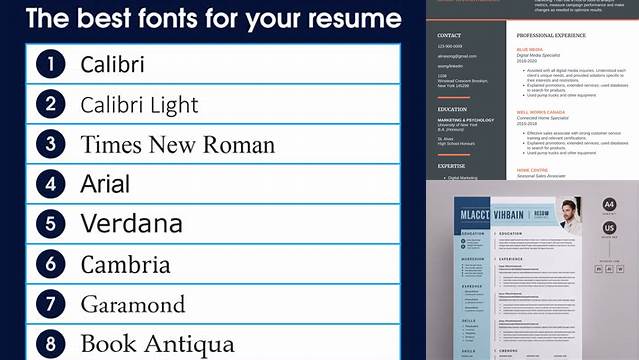
Top Clean Fonts For A Resume That Gets You Hired
Choosing the right font for your resume can make all the difference. A clean and readable font ensures your resume is taken seriously. Let's dive into the best clean fonts for a resume that will help you land that dream job. We'll explore various options, from classic choices to modern alternatives, and explain why each one is a solid pick. Finding the right font is like choosing the perfect outfit for an interview – it needs to make a great first impression. So, whether you're a seasoned professional or just starting your career, read on to discover the fonts that will make your resume shine.
Why Font Choice Matters for Your Resume
The font you choose for your resume isn't just about aesthetics; it's about readability and professionalism. A clean font ensures that your resume is easy to read, which is crucial for recruiters who often skim through hundreds of applications. Imagine reading a resume filled with a fancy, illegible font – it's a surefire way to get your application tossed aside. Using one of the best clean fonts for a resume demonstrates that you pay attention to detail and value clarity. A well-chosen font also reflects your personal brand. A modern, minimalist font might suit someone in the tech industry, while a more traditional font could be better for a conservative field like law or finance. So, take your time and choose wisely; your font can speak volumes about your professionalism and attention to detail.
1. Arial: The Timeless Classic
Arial is a clean font that has stood the test of time. It's a sans-serif font known for its simplicity and readability, making it one of the best clean fonts for a resume. Arial is a safe bet because it's universally recognized and easily readable on both digital screens and printed documents. Its straightforward design ensures that your resume content is the focus, not the font itself. However, because Arial is so common, some might argue that it lacks originality. While this is a valid point, its widespread use also means it's less likely to cause formatting issues across different systems. If you're aiming for a no-fuss, highly readable resume, Arial is a solid choice. Just remember to pair it with thoughtful content and a well-organized layout to stand out from the crowd. After all, even the best clean fonts for a resume need a strong foundation of quality information to truly shine.
2. Calibri: The Modern Standard
Calibri is another clean font that has become a standard, especially since it replaced Times New Roman as the default font in Microsoft Office. Its rounded edges give it a slightly softer, more modern feel compared to Arial. This makes it one of the best clean fonts for a resume if you want something that looks professional but not too rigid. Calibri is highly readable and works well in various sizes, making it versatile for different resume sections. Like Arial, Calibri's ubiquity is both a pro and a con. It's widely recognized and easy to read, but it might not make your resume stand out. However, its clean and contemporary appearance makes it a reliable choice for ensuring your resume looks polished and professional. When using Calibri, focus on crafting compelling content and a visually appealing layout to make a lasting impression.
3. Helvetica: The Design Favorite
Helvetica is a clean font widely favored in the design world for its neutrality and clarity. Its clean lines and simple shapes make it exceptionally readable, securing its place as one of the best clean fonts for a resume. Helvetica's design is so subtle that it doesn't distract from the content, allowing your skills and experience to take center stage. While Helvetica is a premium font (meaning it might not be pre-installed on all systems), its elegance and readability make it worth considering. It conveys a sense of sophistication and attention to detail. If you're applying for roles in creative industries, Helvetica can subtly communicate your design sensibilities. However, be mindful of its availability across different systems to avoid font substitution issues. When used effectively, Helvetica can elevate your resume from ordinary to outstanding. Choosing the best clean fonts for a resume often comes down to striking a balance between readability and style, and Helvetica nails that balance perfectly.
4. Garamond: The Elegant Serif
Garamond is a clean font that brings a touch of elegance and tradition to your resume. As a serif font, it has small strokes at the ends of the letters, which can improve readability in print. This makes Garamond one of the best clean fonts for a resume if you're aiming for a sophisticated yet professional look. Garamond is particularly well-suited for industries that value tradition, such as law, academia, or finance. Its classic appearance conveys a sense of authority and attention to detail. However, Garamond might appear slightly dated to some, so it's essential to balance it with a modern layout and compelling content. When using Garamond, pay attention to the font size and spacing to ensure optimal readability. While it may not be as widely used as sans-serif fonts like Arial or Helvetica, Garamond can help your resume stand out with its unique charm and timeless appeal. Ultimately, the best clean fonts for a resume are those that align with your personal brand and the industry you're targeting.
5. Times New Roman: Proceed with Caution
Times New Roman is a clean font that was once the default choice for resumes, but it's now often seen as outdated. While it's still readable, its overuse has made it a less desirable option. It might not be the best clean font for a resume in today's competitive job market. Using Times New Roman can make your resume appear uninspired and generic, which is the opposite of what you want. Recruiters might perceive it as a lack of effort or attention to detail. However, in certain situations, such as when applying to very traditional institutions or when specifically requested, Times New Roman might still be acceptable. If you do choose to use it, make sure your resume content and layout are exceptional to compensate for the font's lack of originality. The best clean fonts for a resume are those that balance readability with a touch of personality, and Times New Roman often falls short in the latter aspect.
6. Cambria: The Refined Choice
Cambria is a clean font designed specifically for on-screen reading, making it an excellent choice for digital resumes. Its balanced proportions and clear letterforms make it one of the best clean fonts for a resume for ensuring readability. Cambria has a subtle elegance that sets it apart from more generic fonts like Arial or Times New Roman. It's a serif font, but its serifs are more refined and less pronounced, giving it a modern edge. This makes it suitable for a wide range of industries, from corporate to creative. Cambria's readability is particularly beneficial for recruiters who spend only a few seconds reviewing each resume. Its clear and crisp appearance helps your content stand out and grab their attention. When used effectively, Cambria can convey professionalism and attention to detail, making your resume a standout candidate. The best clean fonts for a resume are those that prioritize readability without sacrificing style, and Cambria strikes that balance beautifully.
7. Open Sans: The Modern Sans-Serif
Open Sans is a clean font that’s popular in web design, and it translates beautifully to resumes. Its open and airy design makes it incredibly readable, even at smaller sizes, placing it among the best clean fonts for a resume. This font is modern and minimalist, perfect for candidates in tech, design, or any forward-thinking industry. Open Sans conveys a sense of clarity and simplicity, ensuring your skills and experience are the focus. Because it’s widely available across different platforms, you don’t have to worry about formatting issues. If you want a font that’s both contemporary and highly legible, Open Sans is an excellent choice. Remember, using one of the best clean fonts for a resume is about making a positive first impression, and Open Sans helps you do just that.
8. Lato: The Warm Sans-Serif
Lato is a clean font that offers a friendly and approachable feel, making it a great option if you want to soften your professional image slightly. Its semi-rounded details give it a warmer character than many other sans-serif fonts, which is why it’s considered one of the best clean fonts for a resume. Lato maintains excellent readability while adding a touch of personality. This font works well for a variety of industries, particularly those that value collaboration and communication. Lato is also highly legible in both print and digital formats. When you choose Lato, you’re selecting a font that’s both professional and inviting, helping your resume stand out in a subtle but effective way. Selecting from the best clean fonts for a resume means finding one that reflects your personal brand, and Lato can help you achieve that.
9. Roboto: The Android Favorite
Roboto is a clean font that was developed by Google for Android, and its modern design makes it an excellent choice for resumes, especially if you’re in the tech industry. Its geometric shapes and clear lines make it highly readable, earning it a spot among the best clean fonts for a resume. Roboto is versatile and works well in various sizes, allowing you to create a visually appealing and easy-to-scan resume. Its clean aesthetic conveys a sense of innovation and technical expertise. Plus, Roboto is widely available and compatible, so you don’t have to worry about formatting issues. If you want a font that’s both contemporary and professional, Roboto is a solid pick. Remember, the best clean fonts for a resume are those that help you present your qualifications in the most effective way, and Roboto does just that.
10. Didot: The Stylish Serif
Didot is a clean font known for its elegance and sophistication, making it a stylish choice for resumes in creative fields like fashion or design. Its high contrast and delicate serifs give it a distinctive look, which is why it’s considered one of the best clean fonts for a resume when aiming for a high-end feel. While Didot can add a touch of glamour to your resume, it’s crucial to use it sparingly. Overusing Didot can make your resume look cluttered or difficult to read. Stick to headings or short bursts of text to highlight key information. When used correctly, Didot can convey a sense of refinement and attention to detail. Choosing from the best clean fonts for a resume involves finding the right balance between style and readability, and Didot excels when used strategically.
11. Choosing the Right Font Size
Selecting the right font size is just as important as choosing the right font. A clean font can lose its impact if it’s too small or too large. Aim for a font size between 10 and 12 points for the body text of your resume. This ensures that your resume is readable without taking up too much space. For headings, you can go slightly larger, around 14 to 16 points, to create visual hierarchy. Make sure the font size is consistent throughout your resume to maintain a professional look. If you’re using one of the best clean fonts for a resume, the right font size will enhance its readability and make your resume more appealing to recruiters. Remember, the goal is to make your resume easy to scan and understand, and font size plays a crucial role in achieving that.
12. Font Pairing for Visual Appeal
Font pairing involves combining two different clean fonts to create a visually appealing and balanced resume. This technique can add depth and personality to your resume without sacrificing readability. A common approach is to pair a sans-serif font for headings with a serif font for body text, or vice versa. For example, you could use Open Sans for headings and Garamond for the body. When choosing font pairings, make sure the fonts complement each other and don’t clash. The goal is to create a harmonious look that enhances readability and reflects your personal brand. If you’re using one of the best clean fonts for a resume, experimenting with font pairings can elevate your resume to the next level. Just be sure to keep it simple and avoid using more than two fonts to prevent your resume from looking cluttered.
13. Maintaining Consistency with Fonts
Consistency is key when it comes to using clean fonts on your resume. Once you’ve chosen your fonts and font sizes, stick with them throughout the entire document. This creates a professional and polished look that shows attention to detail. Use the same font for all headings, the same font for all body text, and the same font for bullet points or other formatting elements. Inconsistency can make your resume look sloppy and unprofessional, which can detract from your qualifications. If you’re using one of the best clean fonts for a resume, maintaining consistency will enhance its impact and make your resume more effective. Remember, recruiters often skim through resumes quickly, so a consistent and well-organized format will help them find the information they need.
14. Considering Your Industry
When choosing clean fonts for your resume, it’s important to consider the industry you’re applying to. Different industries have different expectations when it comes to resume formatting and style. For example, if you’re applying to a traditional industry like law or finance, a classic serif font like Garamond or Times New Roman might be appropriate. On the other hand, if you’re applying to a tech or creative industry, a modern sans-serif font like Open Sans or Roboto might be a better choice. The goal is to choose a font that aligns with the industry’s culture and values. If you’re unsure, it’s always a good idea to research sample resumes in your field. Using one of the best clean fonts for a resume that’s also appropriate for your industry can give you a competitive edge and show that you understand the industry’s norms.
15. Ensuring Font Compatibility
Ensuring font compatibility is crucial when using clean fonts on your resume. You want to make sure that your resume looks the same on every computer, regardless of the operating system or software. The easiest way to do this is to use common fonts that are widely available, such as Arial, Calibri, or Times New Roman. If you choose a more unique or less common font, there’s a risk that it won’t display correctly on the recruiter’s computer. This can lead to formatting issues and make your resume look unprofessional. To avoid this problem, you can save your resume as a PDF file. PDF files embed the fonts, so they will always display correctly. If you’re using one of the best clean fonts for a resume, taking steps to ensure font compatibility will prevent any unpleasant surprises and ensure that your resume looks its best.
16. Using Bold and Italics Effectively
Using bold and italics effectively can enhance the readability of your resume and highlight key information. A clean font paired with strategic use of bold and italics can make your resume more visually appealing and easier to scan. Use bold to emphasize headings, job titles, and key skills. Use italics to highlight company names, dates, or other important details. However, avoid overusing bold and italics, as this can make your resume look cluttered and unprofessional. The goal is to use these formatting elements sparingly to draw attention to the most important information. If you’re using one of the best clean fonts for a resume, strategic use of bold and italics can make your resume stand out and grab the recruiter’s attention.
17. The Importance of White Space
The importance of white space cannot be overstated when designing a resume with clean fonts. White space, or negative space, refers to the empty areas around text and other elements on your resume. Adequate white space makes your resume easier to read and less overwhelming. It also helps to highlight important information and create a sense of balance and visual appeal. Avoid cramming too much information onto your resume, as this can make it look cluttered and difficult to scan. Instead, use white space to break up the text and create a more open and inviting layout. If you’re using one of the best clean fonts for a resume, maximizing white space will enhance its impact and make your resume more effective. Remember, the goal is to make your resume easy to read and understand, and white space plays a crucial role in achieving that.
18. Font Licensing and Usage Rights
Font licensing and usage rights are important considerations when choosing clean fonts for your resume, especially if you’re using a font that’s not commonly available. Some fonts are free to use for personal projects, while others require a commercial license. Make sure you understand the licensing terms for any font you use to avoid copyright infringement. If you’re unsure, it’s always best to err on the side of caution and choose a font that’s widely available and free to use, such as Arial, Calibri, or Open Sans. Using one of the best clean fonts for a resume that’s also properly licensed will ensure that you’re not violating any copyright laws and that your resume looks professional and legitimate.
19. Testing Your Resume on Different Devices
Testing your resume on different devices is a crucial step in ensuring that it looks its best, regardless of how it’s viewed. A clean font can appear differently on different screens, so it’s important to check your resume on various devices, such as laptops, desktops, tablets, and smartphones. This will help you identify any formatting issues or readability problems. Pay attention to font sizes, line spacing, and overall layout. Make sure that your resume looks professional and easy to read on all devices. If you’re using one of the best clean fonts for a resume, testing it on different devices will ensure that it maintains its impact and effectiveness. Remember, recruiters may view your resume on a variety of devices, so it’s important to make sure it looks great no matter what.
20. Getting Feedback on Your Font Choice
Getting feedback on your font choice is a valuable way to ensure that your resume is effective and professional. Ask friends, family members, or career counselors to review your resume and provide their honest opinions on your font choice. Do they find the font easy to read? Does it convey a sense of professionalism and competence? Is it appropriate for the industry you’re targeting? Constructive feedback can help you identify any potential issues and make informed decisions about your font choice. If you’re using one of the best clean fonts for a resume, getting feedback will help you fine-tune your resume and make it even more impactful. Remember, a fresh perspective can often reveal things that you might have overlooked.
21. Converting to PDF for Universal Viewing
Converting your resume to PDF (Portable Document Format) ensures universal viewing, meaning your chosen clean font will display correctly no matter the device or operating system used to open it. Unlike word processing documents which can shift formatting based on software versions and installed fonts, PDFs embed the font. This guarantees that your carefully selected best clean fonts for a resume maintain their integrity. Recruiters will see exactly what you designed, preventing unwanted surprises. Before sending, double-check that the PDF is clear, readable, and preserves all formatting elements.
22. Avoiding Overly Decorative Fonts
Avoiding overly decorative fonts is crucial for maintaining a professional resume. While it might be tempting to use a unique or stylish font to stand out, overly decorative fonts can be difficult to read and detract from your qualifications. Stick to clean fonts that are known for their readability, such as Arial, Calibri, or Open Sans. The goal is to make your resume easy to scan and understand, not to impress the recruiter with your font choice. Using one of the best clean fonts for a resume will ensure that your skills and experience are the focus, not the font itself. Remember, the purpose of your resume is to communicate your qualifications effectively, and a clean, readable font will help you achieve that.
23. Adjusting Line Spacing for Readability
Adjusting line spacing is crucial for enhancing readability, especially when working with clean fonts. Proper line spacing, typically between 1.15 and 1.5, prevents text from feeling cramped and allows the reader's eye to flow smoothly. Crowded lines can overwhelm the reader, regardless of how excellent the font is. Using too much spacing, however, can make the resume appear sparse. Optimize line spacing to complement your chosen best clean fonts for a resume, improving overall visual appeal and scannability. Experiment to find the balance that presents information clearly without wasting precious space.
24. Using Kerning to Improve Visual Appeal
Using kerning can subtly improve visual appeal. Kerning adjusts the spacing between individual letters, enhancing readability and the overall look of your carefully chosen clean font. Poor kerning can make words appear uneven or disjointed. Most word processors offer automatic kerning adjustments. However, for a polished touch, manually adjust kerning in titles or headings for a professional, custom feel. Thoughtful kerning maximizes the impact of the best clean fonts for a resume, showcasing attention to detail and design, ultimately enhancing your resume’s aesthetic and ensuring it's easy on the eyes.
25. Serif vs. Sans-Serif: Which to Choose?
Serif versus sans-serif fonts presents a fundamental choice: serifs have small strokes at the end of letters, while sans-serif fonts lack these embellishments. For clean fonts, serif fonts like Garamond often convey tradition and formality, ideal for roles in law or academia. Sans-serif fonts, such as Arial or Helvetica, offer modern simplicity, suitable for tech or creative industries. The decision between them hinges on your industry, personal brand, and the tone you want to project. Ultimately, choose the one that balances readability with the appropriate feel. Using one of the best clean fonts for a resume should align with expectations and reflect professionalism.
26. How to Handle Long Job Titles
Handling long job titles requires careful attention to formatting. When a lengthy title threatens readability, consider a few strategic adjustments. First, ensure you’re using one of the best clean fonts for a resume – something legible at smaller sizes. Next, break the title into two lines if necessary, prioritizing logical breaks. Reduce font size slightly, but only if it remains easily readable. Be consistent; apply the same solution across all long titles. Avoid excessive abbreviations or sacrificing clarity for brevity. Thoughtful formatting prevents long titles from overwhelming your resume and enhances its professional presentation.
27. Minimizing Font Styles for Clarity
Minimizing font styles is essential for resume clarity. Resisting the urge to use excessive bolding, italics, or underlining promotes readability and a professional image. A clean font loses its impact when surrounded by too many competing styles. Instead, use formatting sparingly to emphasize key achievements or section headings. Overuse creates visual clutter, diminishing the impact of important information. By simplifying font styles, you ensure that the recruiter focuses on your qualifications rather than being distracted by unnecessary embellishments. Choosing one of the best clean fonts for a resume requires complementing it with minimalist formatting for optimal results.
28. Checking for Font Rendering Issues
Checking for font rendering issues is a crucial final step. Before submitting your resume, always verify how your chosen clean font appears on different devices and operating systems. Font rendering can vary, leading to unexpected display problems like distorted characters or incorrect spacing. Ask friends or colleagues to review your resume on their computers. Preview your document in different PDF viewers. Address any issues promptly by adjusting font choices or formatting. Vigilance in checking prevents unforeseen rendering problems and ensures your carefully crafted resume, featuring one of the best clean fonts for a resume, always makes the right impression.
29. When to Embed Fonts in Your Resume
Knowing when to embed fonts in your resume is key for preserving its intended look. Embedding ensures your chosen clean font displays correctly regardless of whether the recipient has it installed on their system. This is especially important for less common fonts. Convert your document to PDF format and select the option to embed fonts during the conversion process. However, embedding can increase file size, so consider this tradeoff. If you’re using widely recognized fonts like Arial or Calibri, embedding might be unnecessary. When using one of the best clean fonts for a resume that is a bit more unique, embedding ensures consistency and professionalism across all viewers.
30. The Future of Resume Fonts: Trends to Watch
The future of resume fonts points towards increasing emphasis on readability and digital-friendliness. Trends to watch include the continued popularity of minimalist sans-serif fonts that render well on screens, as well as a resurgence of classic serif fonts used sparingly for a touch of elegance. Expect to see more custom fonts designed specifically for digital resumes, optimized for readability on various devices. Adaptive fonts, which adjust their appearance based on screen size and resolution, may also become more prevalent. Staying informed about these trends ensures your resume, featuring one of the best clean fonts for a resume, remains current and effective in the evolving job market.